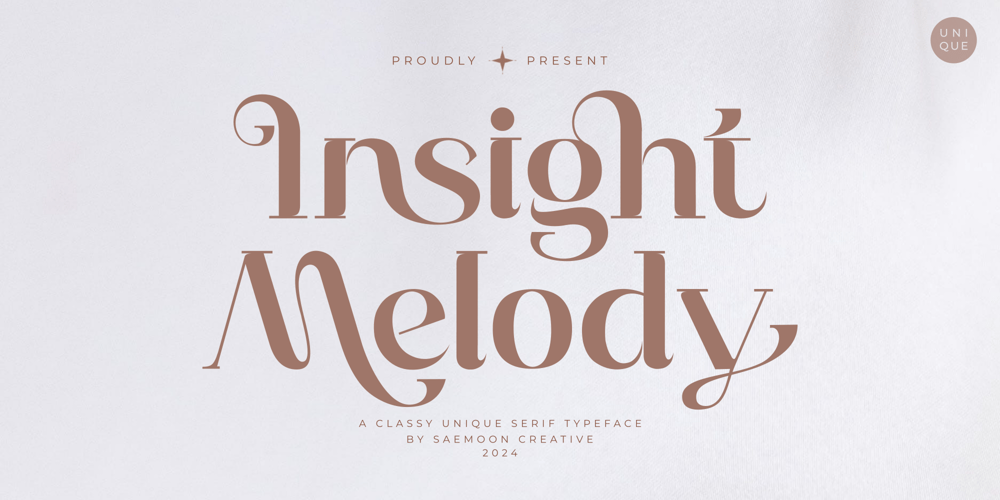
Insight Melody Font Family was designed by Sapto Susilo and published by Saemoon Creative. Insight Melody contains 1 styles and family package options. The “Insight Melody” font is a symbol of elegance and uniqueness that captivates. Crafted with detailed design harmony, each letter depicts profound beauty and captivating intelligence. With a classic touch combined with modern nuances, this font creates an atmosphere that is elegant yet retains its unique authenticity.When you gaze upon “Insight Melody”, your eyes will be delighted by the luxury of every curve. Its smooth lines and balanced proportions provide a strong yet captivating character. Each letter showcases timeless beauty, revealing details perfected with captivating precision.With such high quality, “Insight Melody” becomes the perfect choice for projects requiring an exclusive touch. Suitable for promotional materials, branding designs, or even to add a touch of luxury to artworks. This font not only grabs attention but also inspires unforgettable experiences.With “Insight Melody”, every word becomes a captivating song, portraying a colorful and vibrant story. This font is the right choice for those who appreciate beauty, elegance, and unparalleled uniqueness.